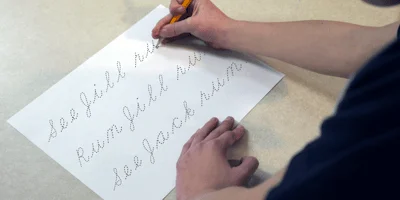
Dot To Dot Cursive Font
Dot To Dot Cursive Font is perfect for educational materials, children's learning resources, handwriting practice sheets, elementary schools, homeschooling supplies, learning centers, and instructional design applications. This educational typeface brings learning support and handwriting development to academic design projects.
Dot To Dot Cursive Font is exciting because it combines traditional cursive elegance with educational functionality, featuring dotted letterforms that guide handwriting practice while maintaining beautiful script flow and exceptional learning appeal across educational applications.
The Dot To Dot Cursive Font family includes regular dotted and solid variations with educational character elements and learning-focused styling details. This instructional collection provides designers with educational options for creating memorable and academically supportive brand experiences.
Dot To Dot Cursive Font offers designers access to an educationally crafted typeface that embodies the perfect balance of learning support and beautiful handwriting instruction. This instructional font features carefully designed dotted letterforms with cursive flow that create immediate associations with handwriting education, learning development, and academic progress. The typeface showcases educational proportions and learning aesthetics that enhance instructional communications while maintaining professional functionality and broad accessibility. Its educational character makes it particularly suitable for schools and learning organizations that require typography capable of conveying educational support, handwriting instruction, and learning development. Dot To Dot Cursive Font delivers exceptional educational impact for applications where standard fonts lack the instructional character and learning support necessary for educational communications and academic branding. The font's learning appeal and educational aesthetic make it an essential tool for designers working on projects that require typographic expression of educational excellence, handwriting instruction, and learning support that resonates with audiences seeking authentic educational experiences and instructional visual communication.